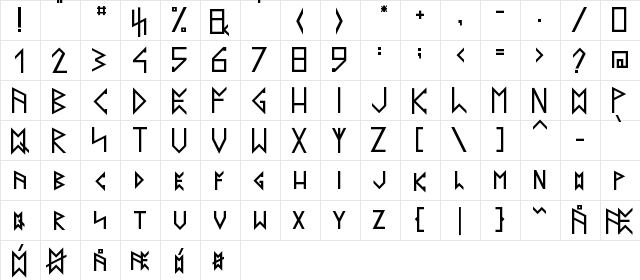
Latin Runes v.2.0 Regular
Design Context for Latin Runes v.2.0 Typeface
Latin Runes v.2.0 is a composed and adaptable typeface that performs quietly and consistently across a wide range of design contexts.